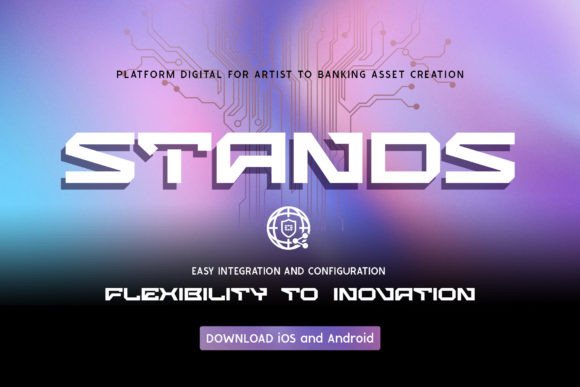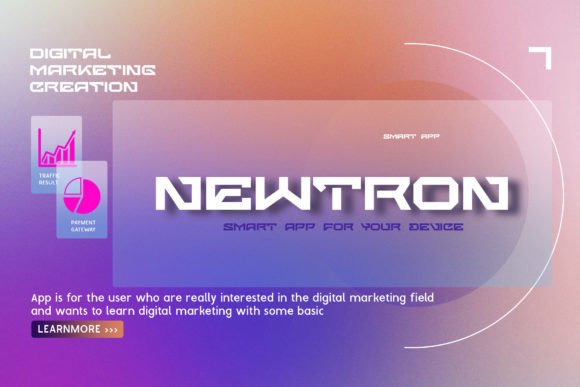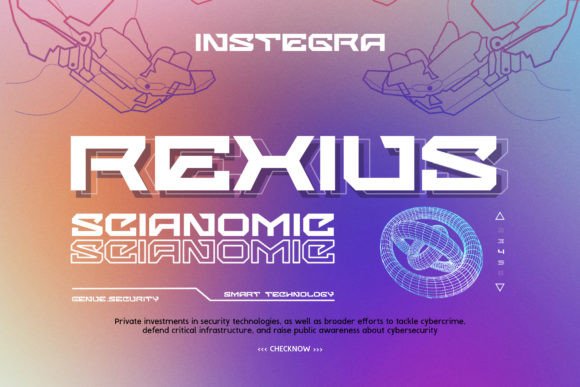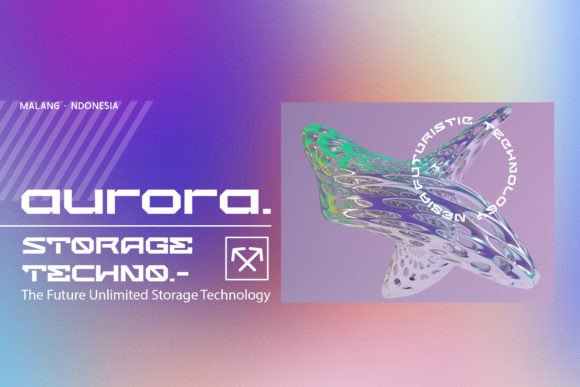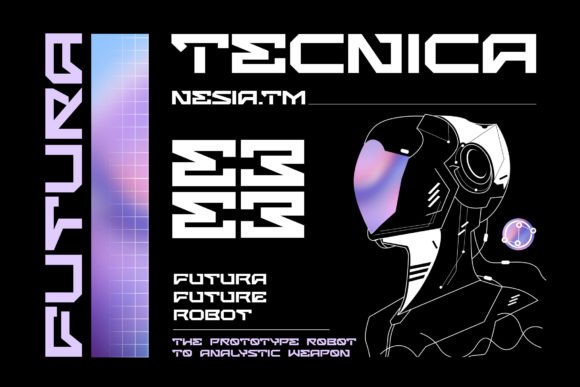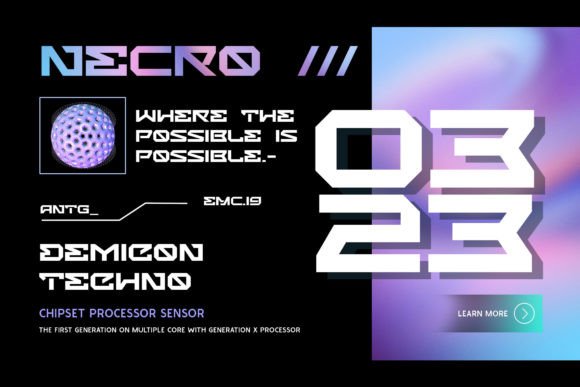
The Perfect Font for Making a Statement: Introducing Demicon
Have you ever stared at a blank page, waiting for that spark of inspiration to strike? Maybe it’s the perfect phrase, the ideal color palette, or the one font that brings your design to life. For many designers, that moment of epiphany is what drives them to create something truly remarkable. And for those looking to make a bold impression, there’s one font that stands out from the crowd: the Demicon Font.
This stylish and futuristic typeface is more than just a pretty face – it’s a powerful tool for designers who want to create eye-catching headlines and graphic designs. With its unique ligatures and alternate characters, the Demicon Font is the perfect choice for branding, packaging, advertising, and more. Whether you’re working on a web or print project, this versatile font is sure to deliver.
- Font Family: Demicon Font is a sans-serif font family that offers a clean and modern look.
- Resolution: Supports high-resolution printing and digital display, making it suitable for a wide range of applications, including signage, advertising, and digital media.
- Unique Characteristics: Demicon Font features a unique blend of geometric and humanist elements, resulting in a distinctive and recognizable visual identity.
Demicon Font Review
Overall, I was impressed with Demicon Font. Here are some aspects that worked well for me: ✨
- Unique style: Demicon Font has a distinctive look that sets it apart from other fonts. It’s a great choice for designers looking to add some flair to their projects.
- Legibility: Despite its unconventional design, Demicon Font is surprisingly easy to read, making it suitable for body text as well as headings.
- Font pairing options: Demicon Font can be paired with a wide range of other fonts, making it a versatile choice for designers who want to create a unique visual identity.
- Limited font sizes: Demicon Font is best suited for smaller font sizes, as larger sizes can make the font look cluttered and difficult to read.
- No bold or italic versions: If you need to emphasize certain text, you may need to use a different font or rely on other design elements.
Overall, Demicon Font is a great choice for designers who want to add some personality to their projects. While it may not be suitable for every design, it’s a unique and stylish option that can help you stand out from the crowd.
Tips for Getting the Most Out of Demicon Font
Use Demicon Font for titles, headings, and other large text elements to create a bold and eye-catching design.
Pair Demicon Font with other fonts to create a unique and stylish typography.
Experiment with different font sizes and colors to find the perfect combination for your design.
Demicon Font is ideal for:
Creating bold and eye-catching titles and headings.
Designing posters, flyers, and other marketing materials.
Adding a touch of elegance to your website or blog.
Alternatives to Demicon Font
Open Sans is a popular sans-serif font that is highly legible and versatile. It’s suitable for body text, headings, and titles. It’s a great choice for modern designs and is highly customizable. Open Sans is more modern and clean compared to Demicon Font, which has a more traditional feel.
Lato is a sans-serif font that is highly readable and elegant. It’s a great choice for headings, titles, and body text. Lato has a more humanistic feel compared to Demicon Font, which is more geometric. It’s a great choice for designs that require a touch of sophistication and elegance.
Montserrat is a sans-serif font that is highly versatile and legible. It’s a great choice for body text, headings, and titles. Montserrat has a more urban feel compared to Demicon Font, which is more traditional. It’s a great choice for designs that require a modern and edgy feel.